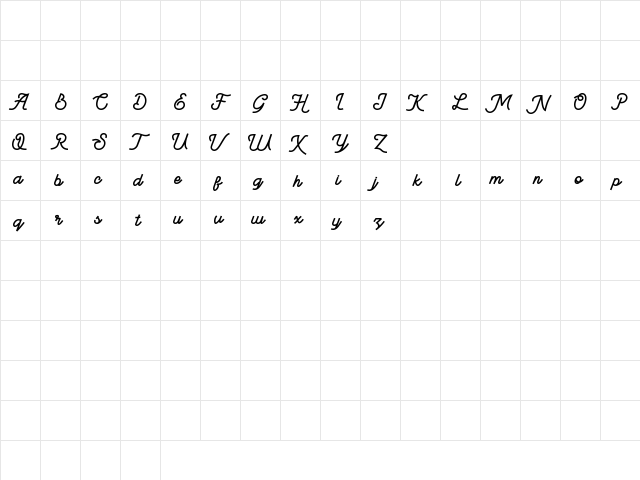
BeeQueen Script Clean Regular
Design Context for BeeQueen Script Clean Typeface
BeeQueen Script Clean flows with the natural rhythm of handwritten lettering, making it ideal for designs that call for warmth and personal expression.
Font Pairing: Combine BeeQueen Script Clean with a simple geometric sans for maximum contrast — the tension between flowing curves and clean structure is a classic typographic pairing.
Pro Tip: Pair BeeQueen Script Clean with a clean sans-serif for supporting text. The contrast between fluid script and geometric structure creates an elegant typographic hierarchy.